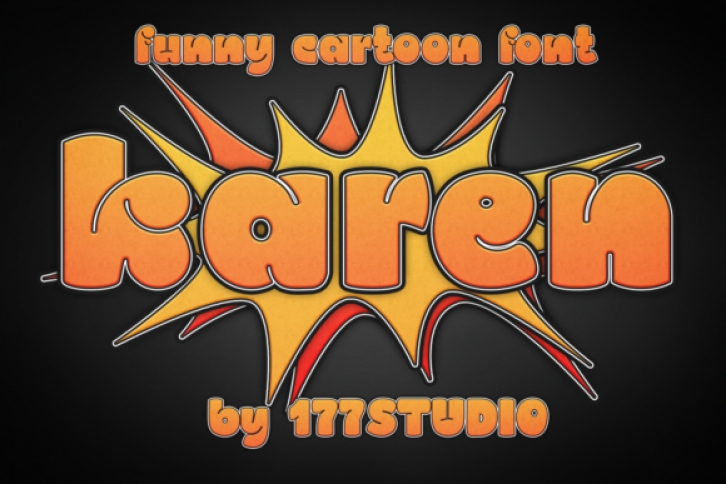
Karen is a quirky and unique display font. It will add an incredibly joyful touch to your designs.
Fall in love with its playful style and use it to create beautiful stationary art, eye-catching social media posts, and much more!